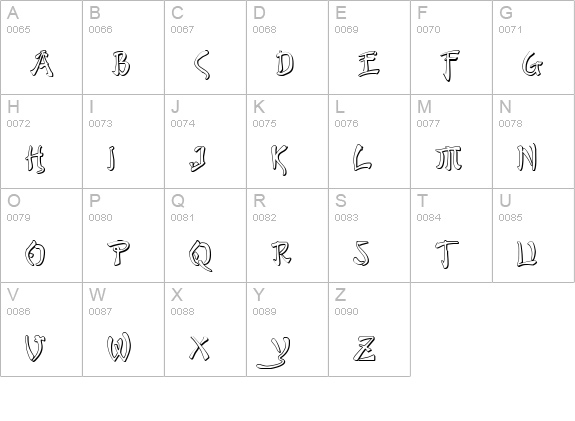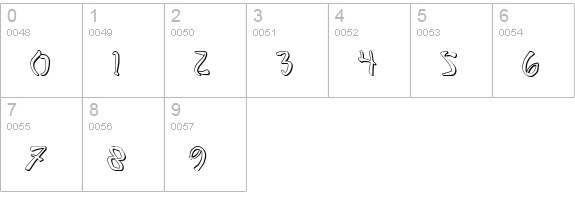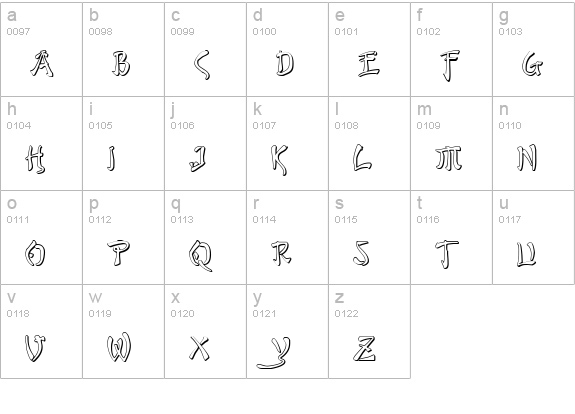
Bushido Shadow font is a striking display typeface that exudes a sense of boldness and mystery. Inspired by the elegance and precision of traditional Japanese calligraphy, this font features sharp, angular lines and intricate details that give it a unique and eye-catching appearance. The deep shadows cast by each character add a sense of depth and drama to any text. What makes Bushido Shadow font even more appealing is that it is available for free download at FontsMarket.com. Whether you're working on a design project that requires a touch of sophistication or simply looking to add a touch of intrigue to your personal creations, this font is sure to make a statement. Download Bushido Shadow font today and let its captivating style elevate your designs to new heights.